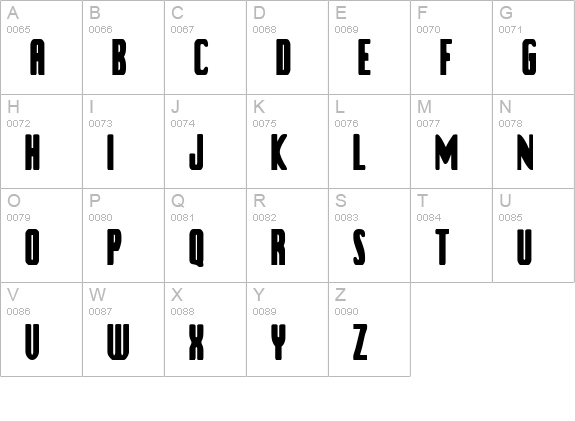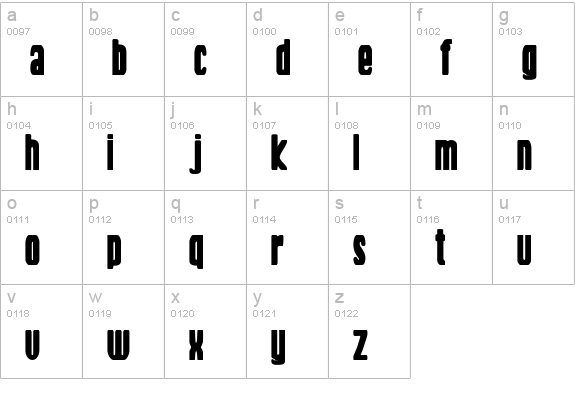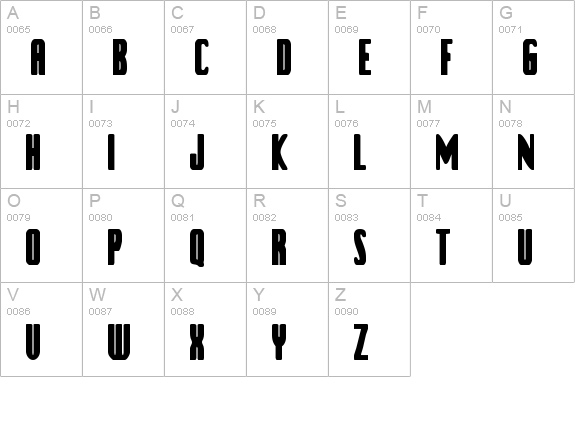
Vanilla Boys Font Details
Introducing Vanilla Boys, a font that embodies the essence of simplicity and elegance. Designed with a touch of sophistication, this font exudes a timeless charm that effortlessly captures attention. Its clean lines and balanced proportions make it a versatile choice for a wide range of design projects. Vanilla Boys is the epitome of versatility, suitable for both professional and personal use. Whether you're creating a logo, designing a website, or crafting invitations, this font will elevate your work to new heights. Its smooth curves and refined details add a touch of refinement to any project, while its legibility ensures that your message is communicated clearly and effectively. What makes Vanilla Boys even more appealing is that it is free. Yes, you read that right - this exquisite font is freely available to download at FontsMarket.com. With just a few clicks, you can enhance your design arsenal with this beautiful typeface, without having to break the bank. So, why wait? Experience the elegance and versatility of Vanilla Boys as you embark on your creative journey. Download this font today and let your designs speak volumes with its timeless appeal.